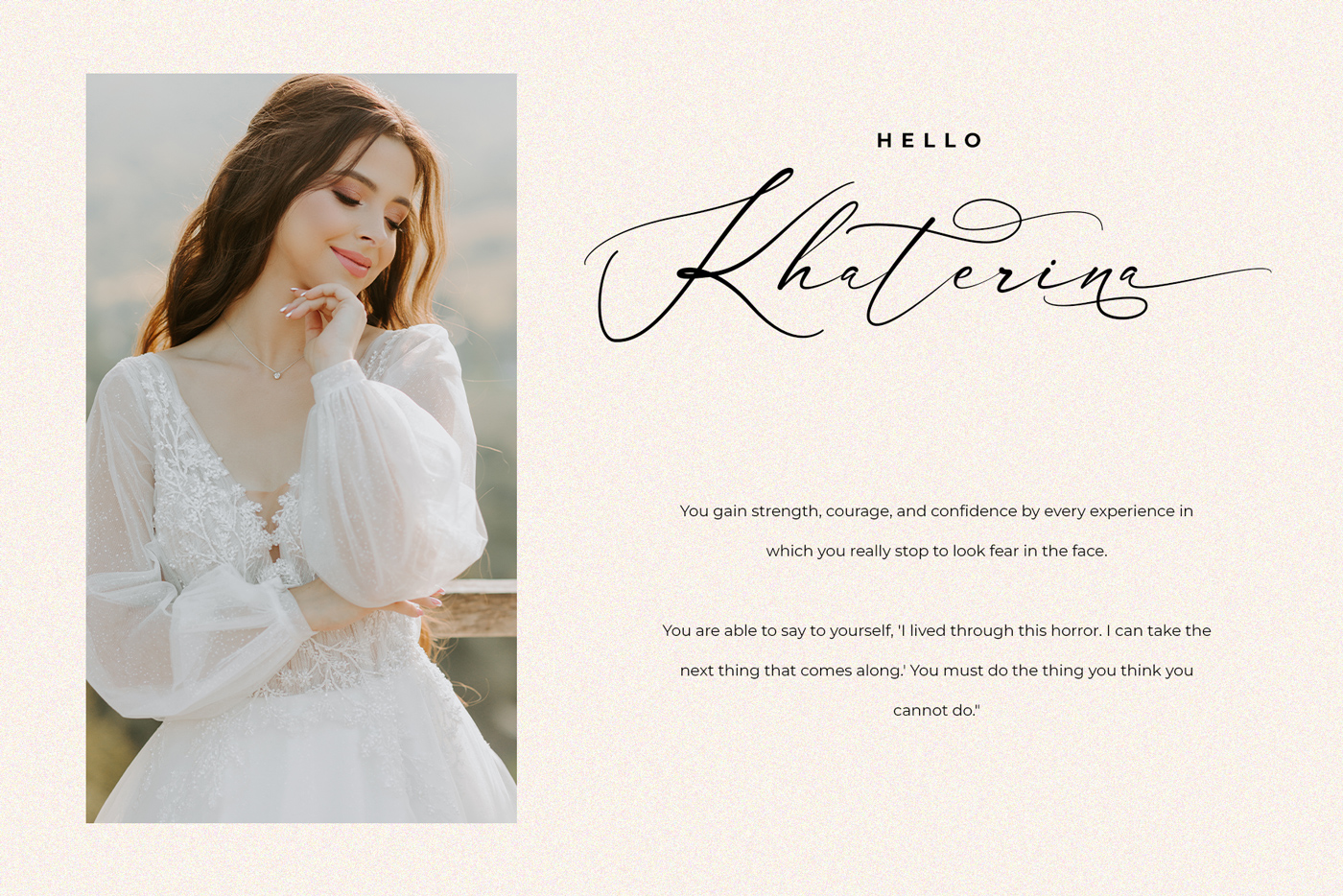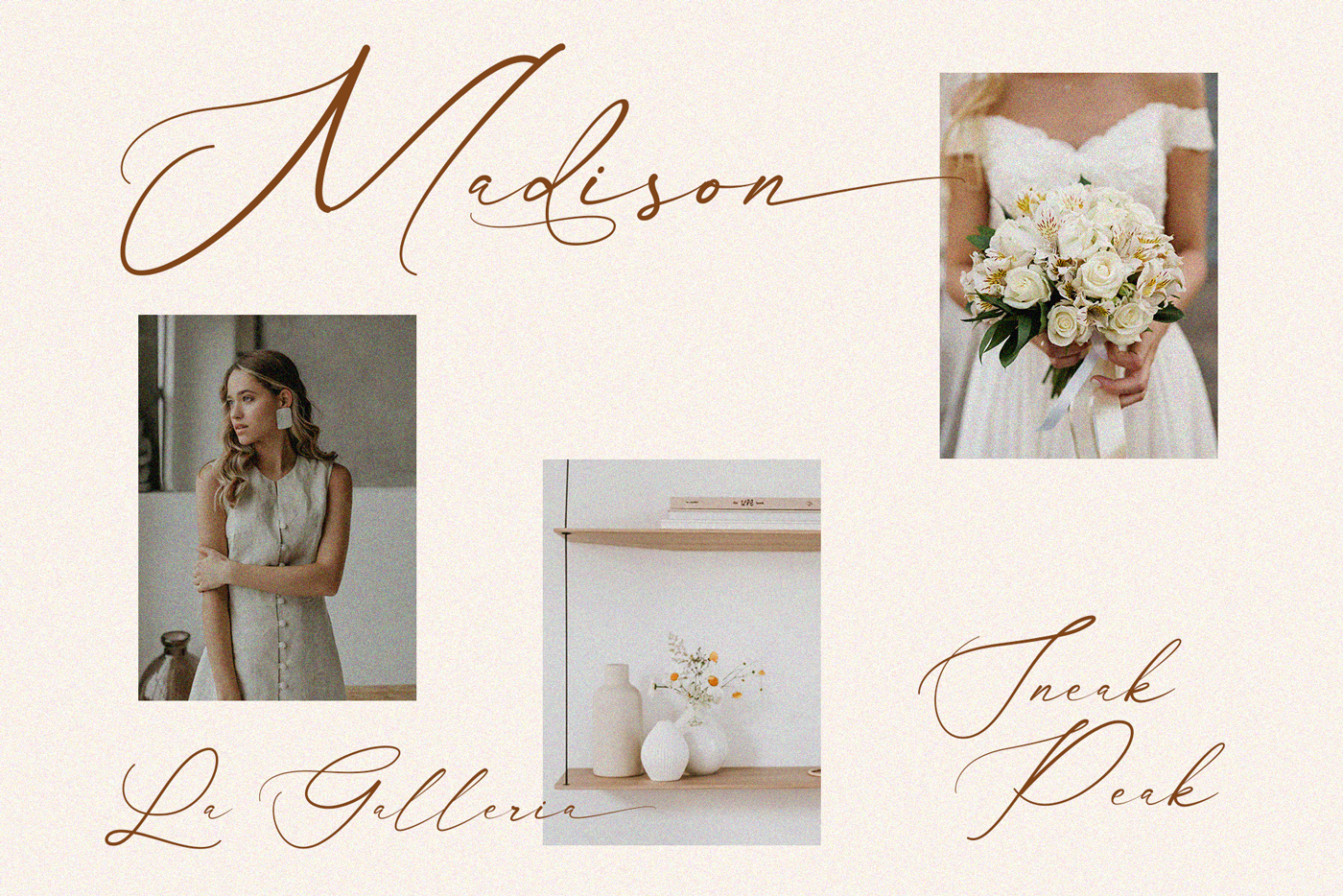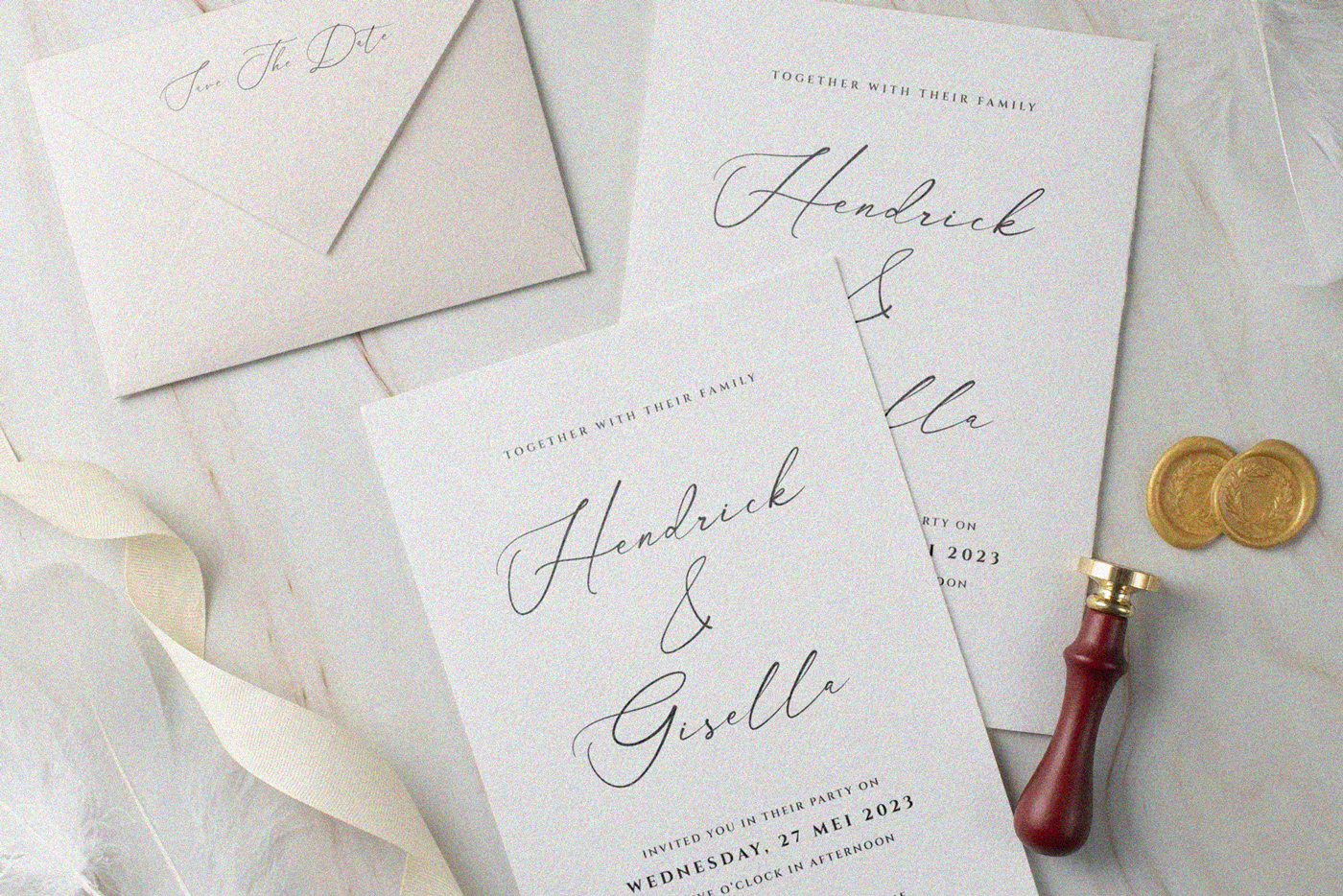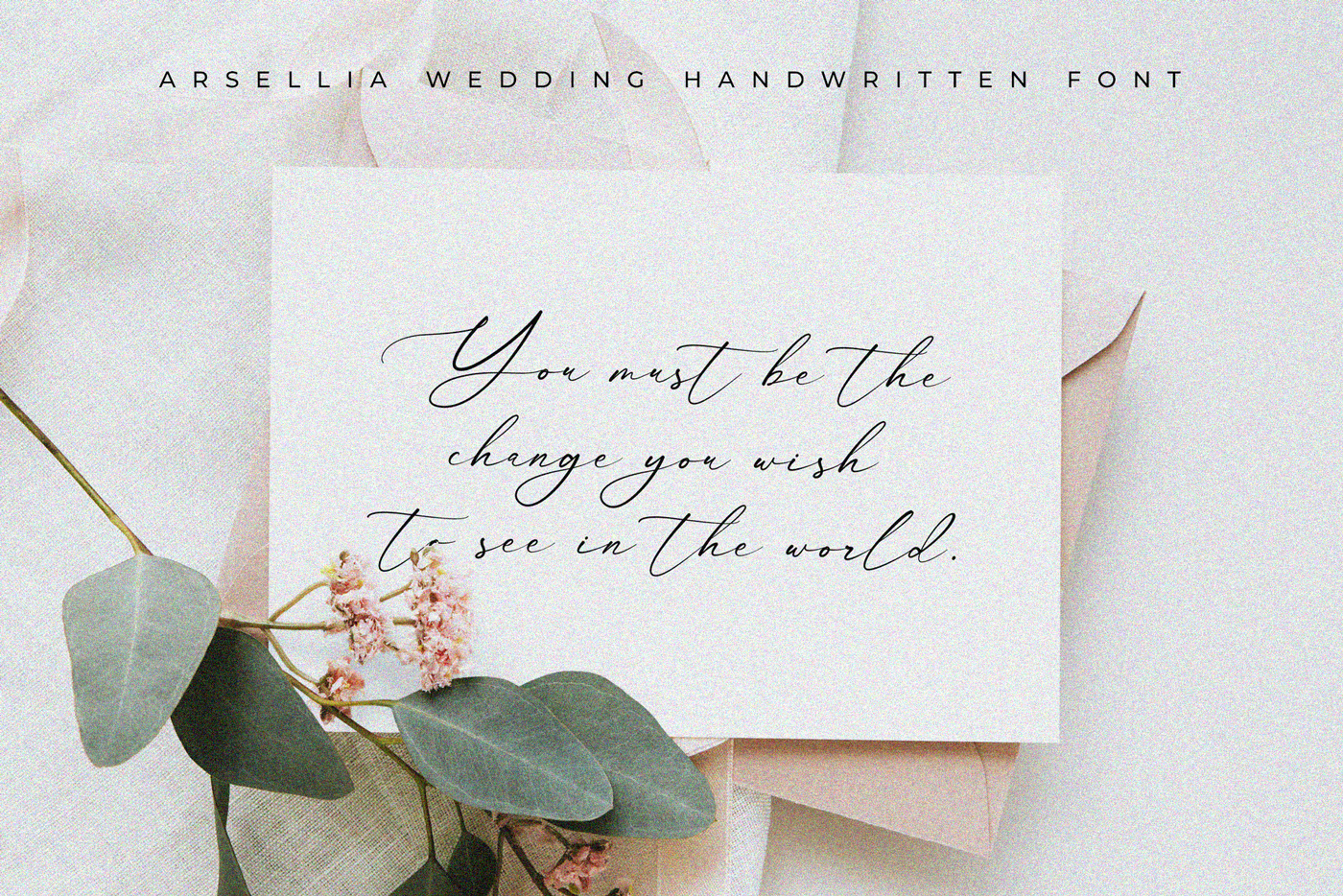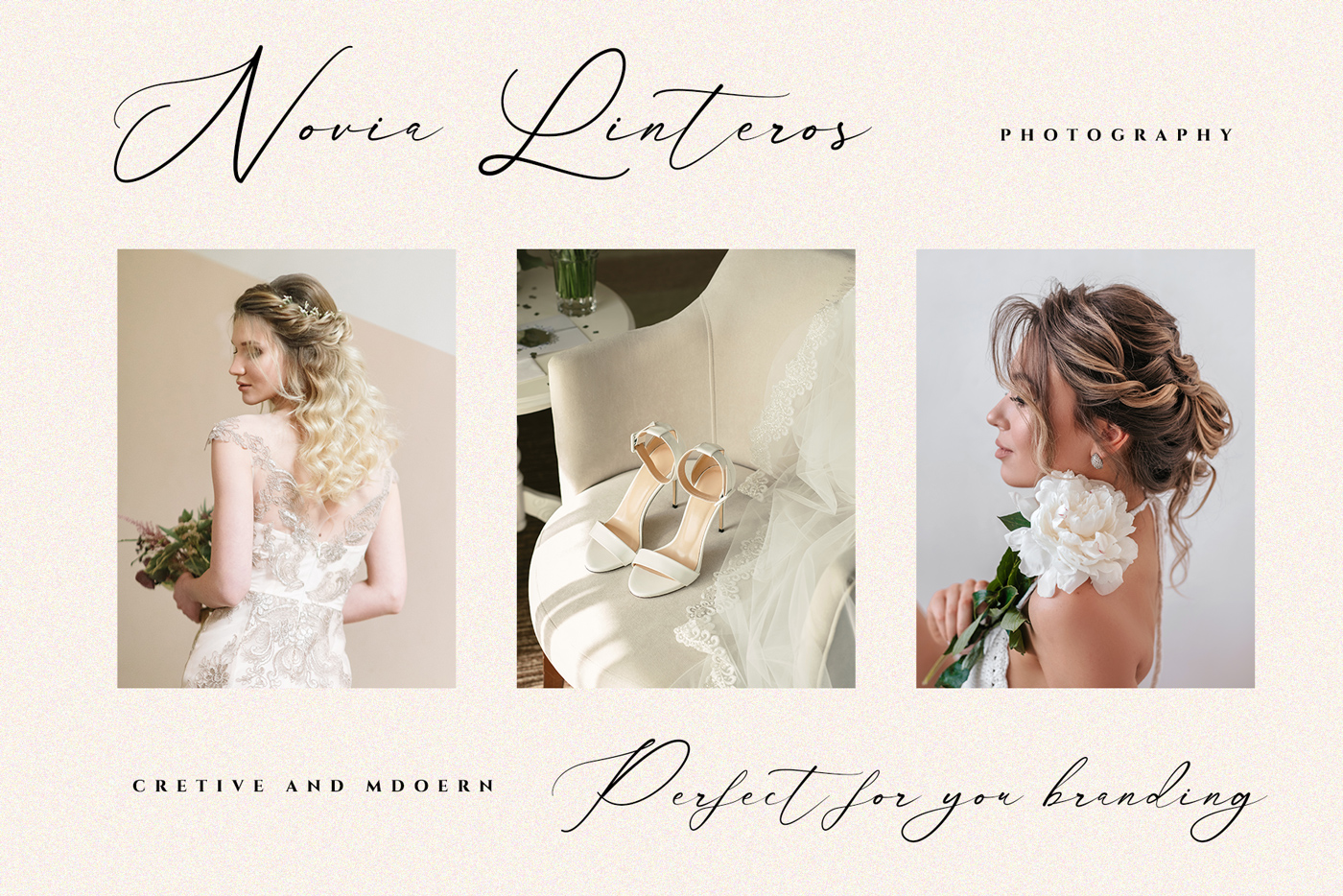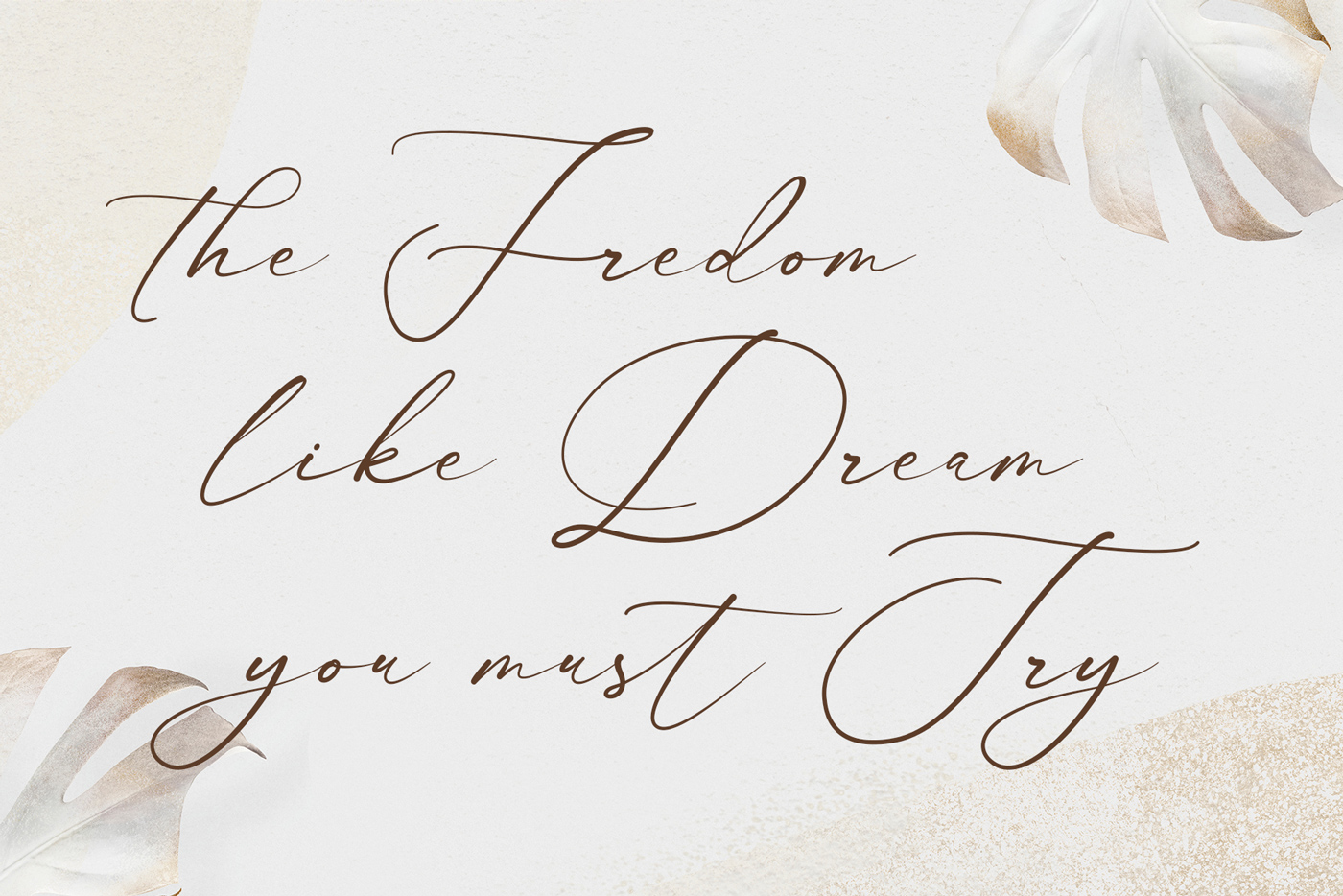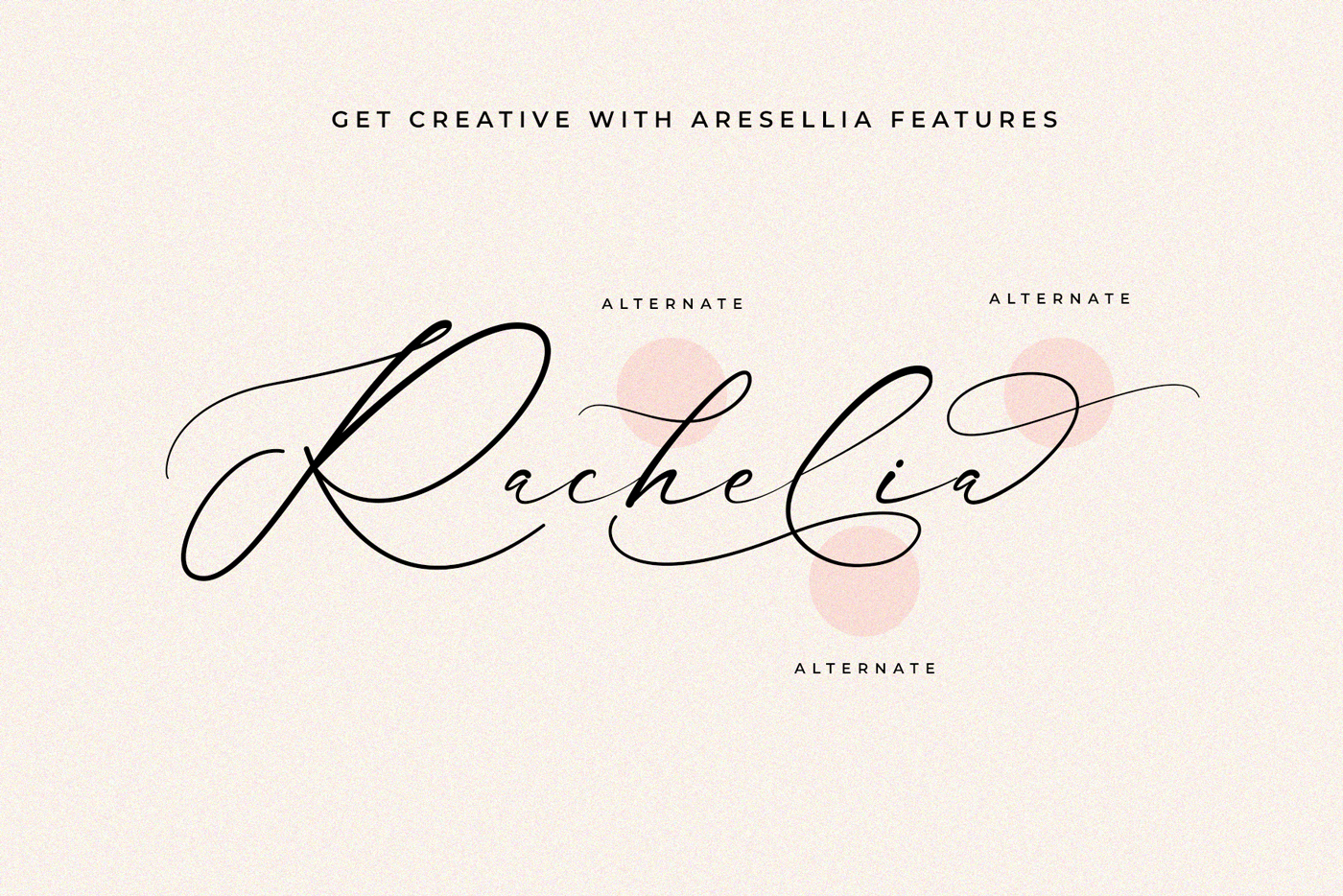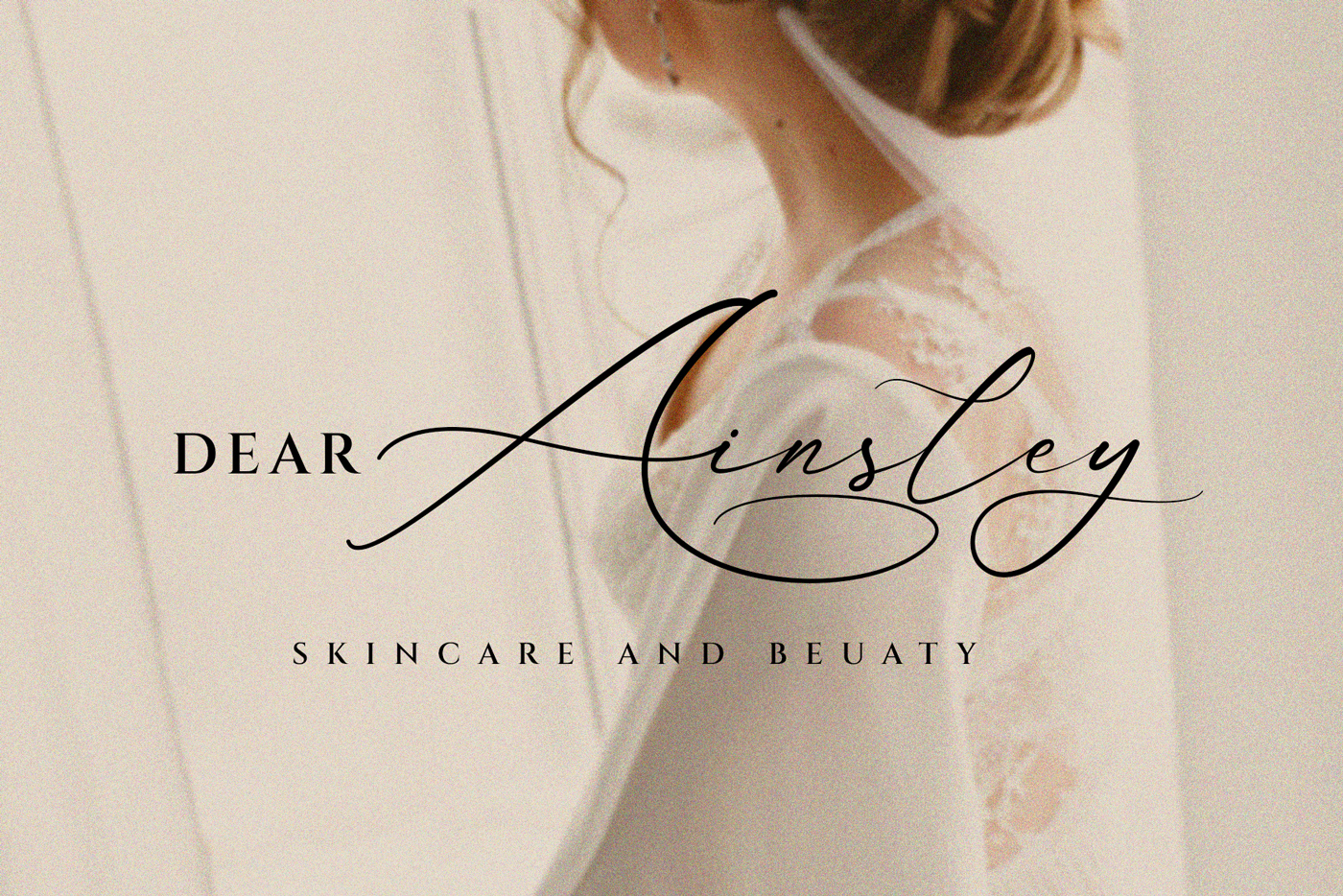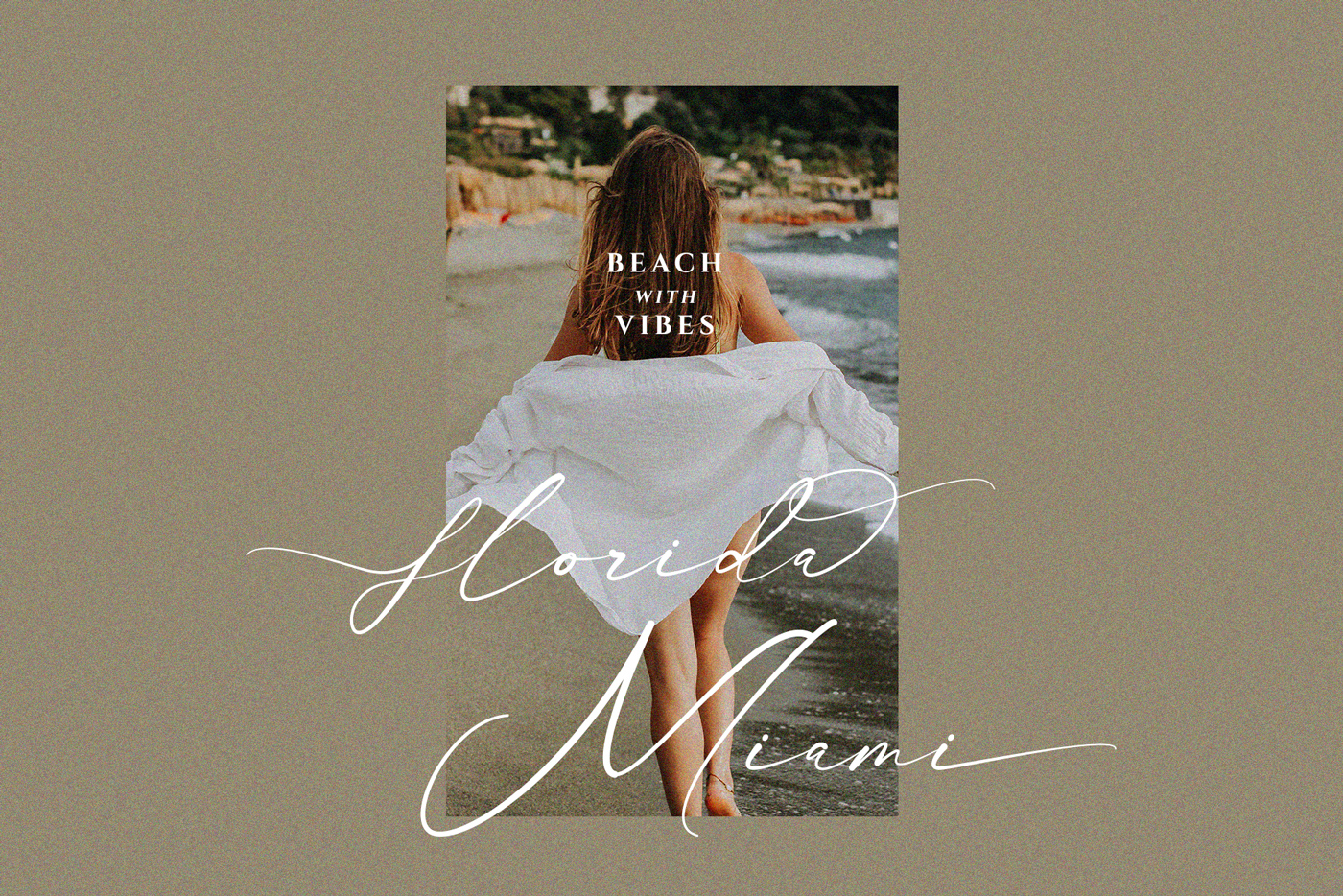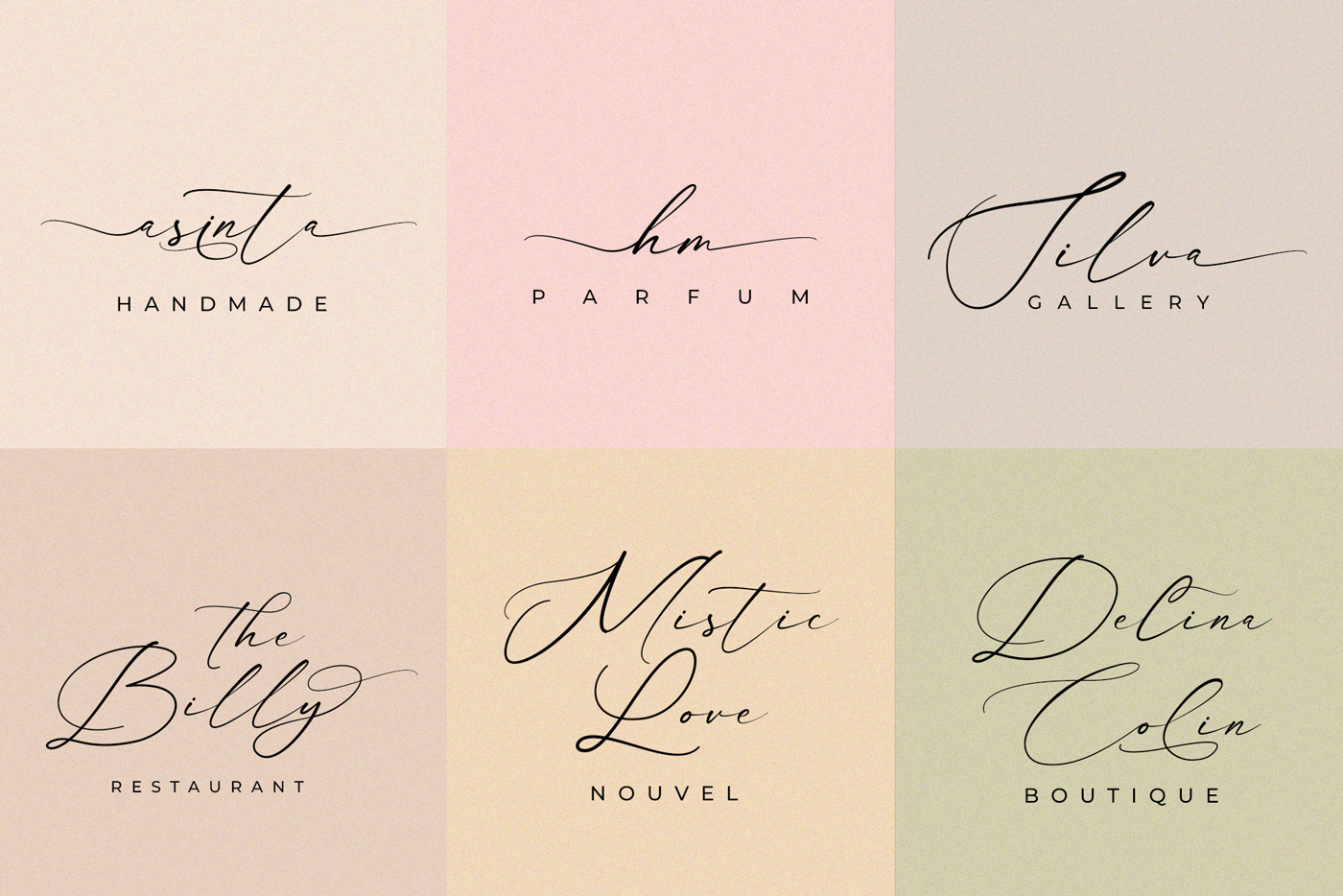
Arsellia Wedding Calligraphy Font
Arsellia is calligraphy font it’s looks modern, feminine, girly, catchy and easy to use. Arsellia is the great choice for watermark on wedding organizer, signature or signature logo design, quotes, album cover, business card and many other design project.
• Basic Latin A-Z and a-z
• Begin and end swashes